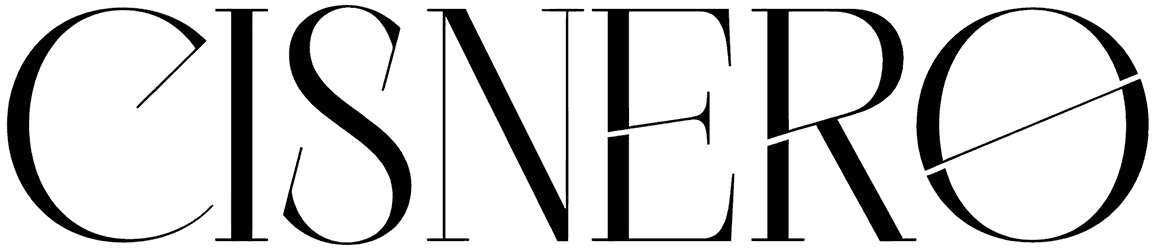
Cisnero Font
Cisnero font has that elegant serif confidence that makes a headline feel instantly more cultured, as it belongs on a boutique sign, a wine label, or the cover of a novel with excellent lighting. Its classic shapes bring a refined mood without looking too fragile, so you get style, readability, and a little old-world drama all working together.
Use Cisnero font for fashion branding, editorial titles, restaurant menus, wedding stationery, perfume packaging, gallery posters, or luxury product labels. Pair this serif font with muted colors, generous spacing, and textured paper, and the whole layout starts feeling tastefully expensive.